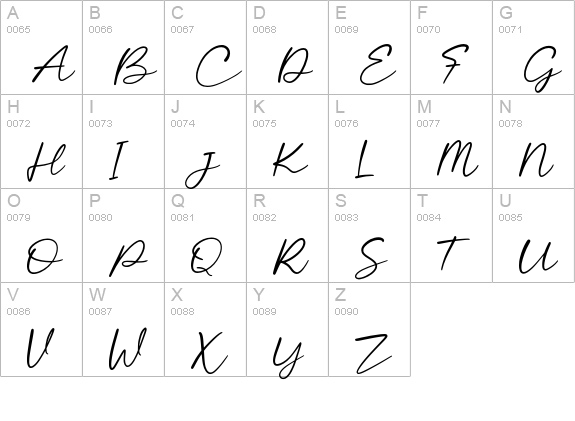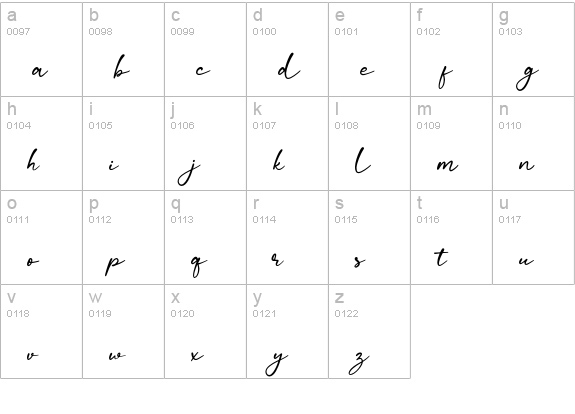
Calaya font is a visually stunning typeface that combines elegance with modernity. Featuring sleek lines and unique curves, this font is perfect for a wide range of design projects, from branding to editorial design. With its clean and sophisticated look, Calaya font exudes a sense of refinement and style.
What sets Calaya font apart is not only its aesthetic appeal but also its versatility. Whether you're working on a logo, a website, or a poster, this font will add a touch of sophistication to your design. Its timeless design makes it suitable for both digital and print applications.